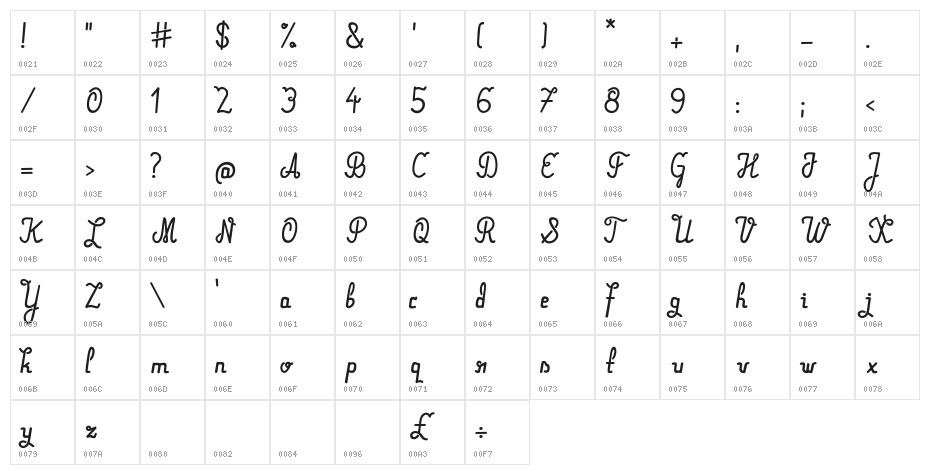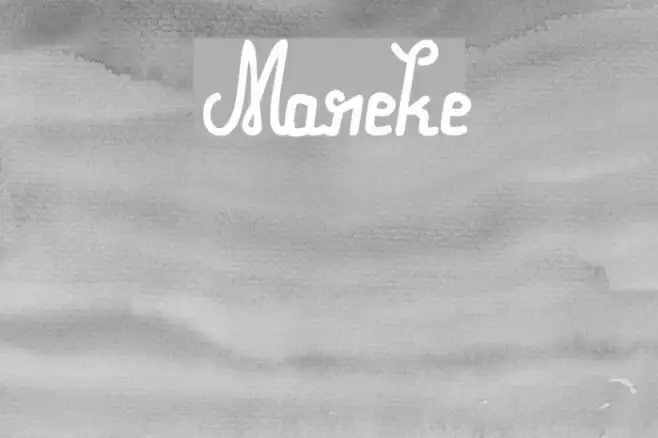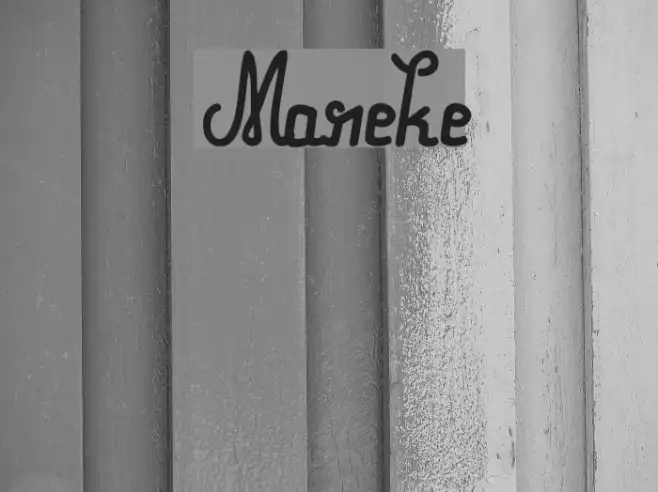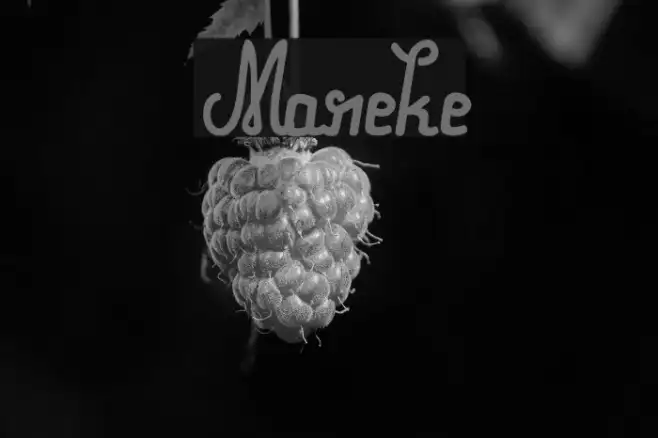
Mareke Font
Mareke Description
This font exhibits a playful and whimsical style, characterized by its flowing, cursive-like letters that maintain a consistent rhythm throughout. The uppercase letters are bold and prominent, with distinctive loops and curves that add a touch of elegance and flair. The lowercase letters complement the uppercase with their own unique charm, featuring rounded edges and smooth transitions. Numbers and special characters are crafted with the same attention to detail, ensuring a cohesive look across all elements. The font's overall appearance is both artistic and approachable, making it suitable for a variety of creative applications.
| Proposed Projects | Ideal for greeting cards, invitations, playful branding, and creative posters. |